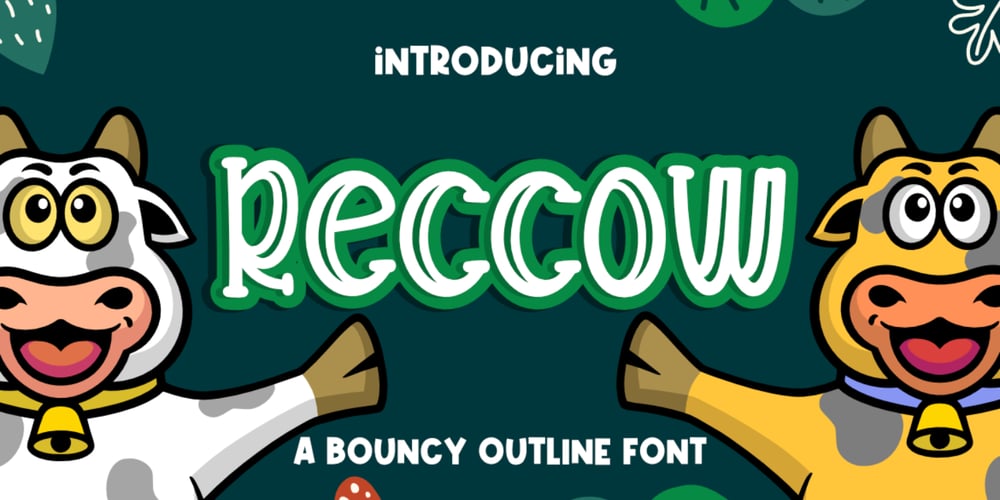
Reccow Font Family was designed by Bayu Aji Fais Mursid and published by Bayuktx. Reccow contains 1 styles and family package options. Hello,Thank you for visiting my products, we will give you the best choice.Reccow a Bouncy Outline Font, This font is made with a high premium quality level which you can use as flyers, quotes, posters, banners, packaging, merchandise, logotypes and much more.FEATURES :* Uppercase* Lowercase* Number* Punctuation* Multilingual* PUA Encode* OpentypeFILES INCLUDED :* Reccow. Thank you